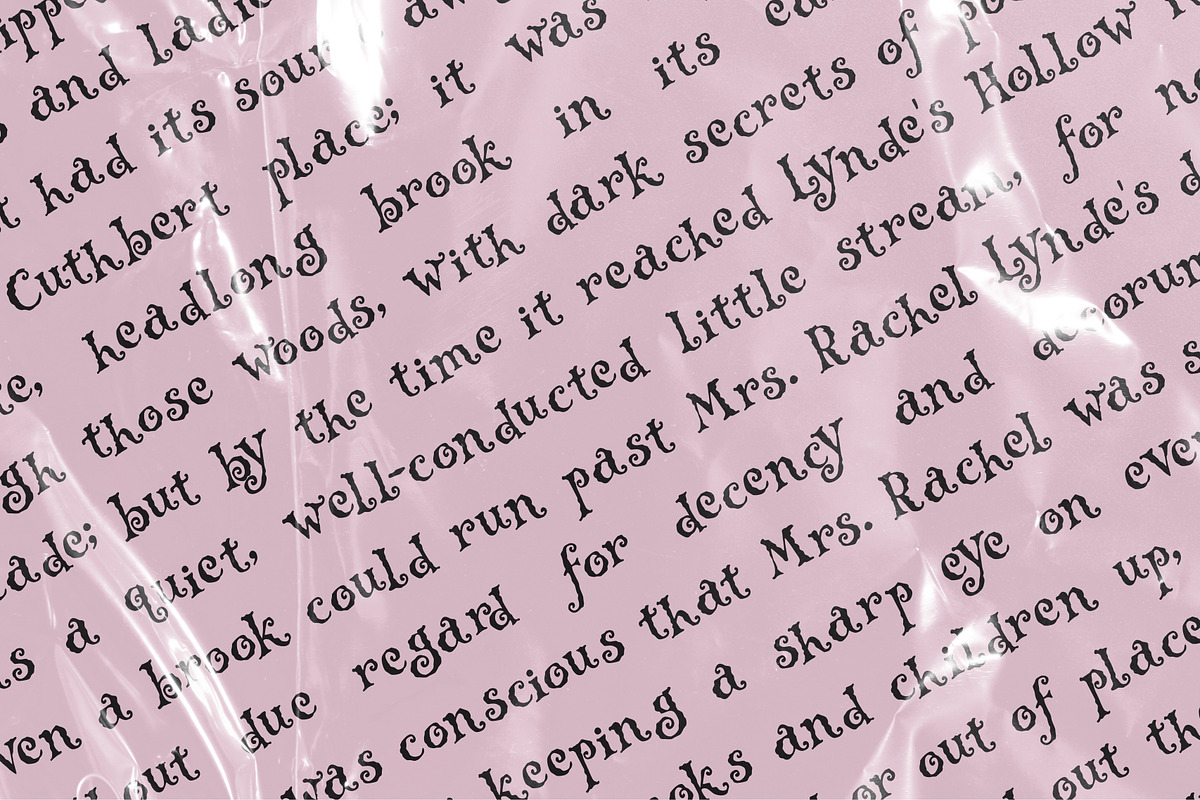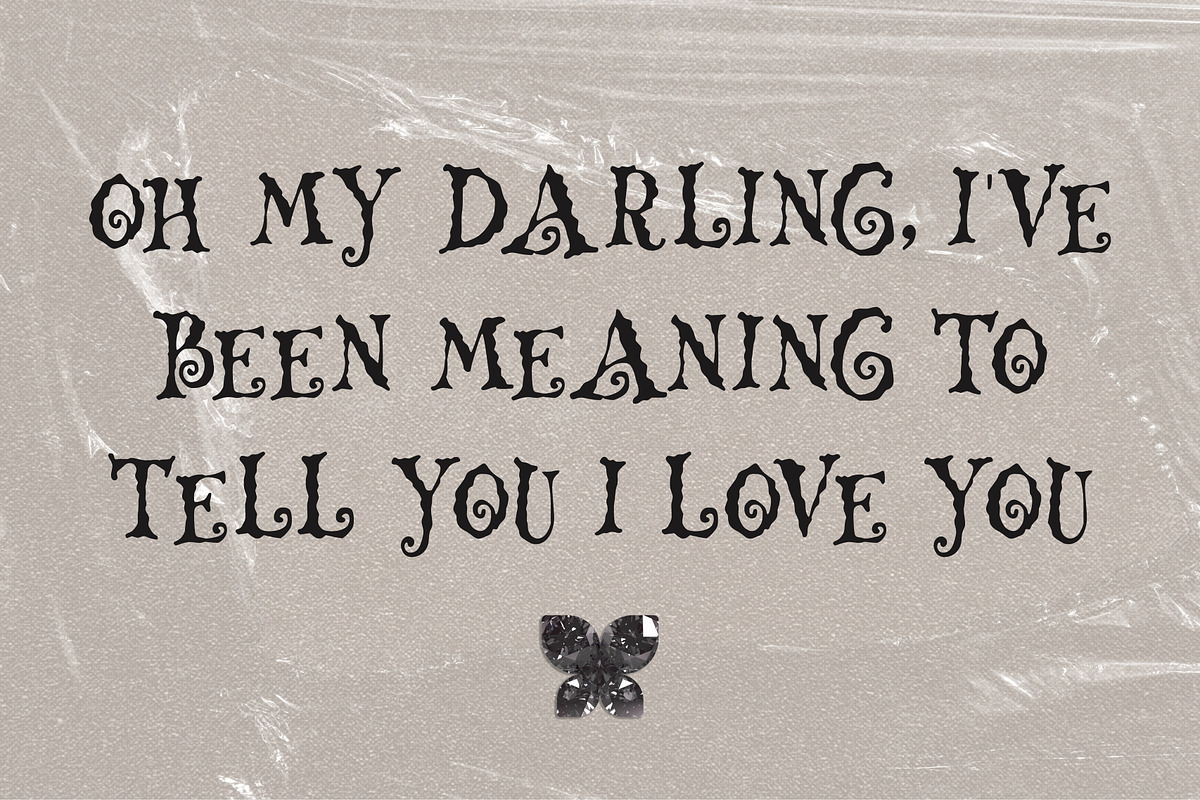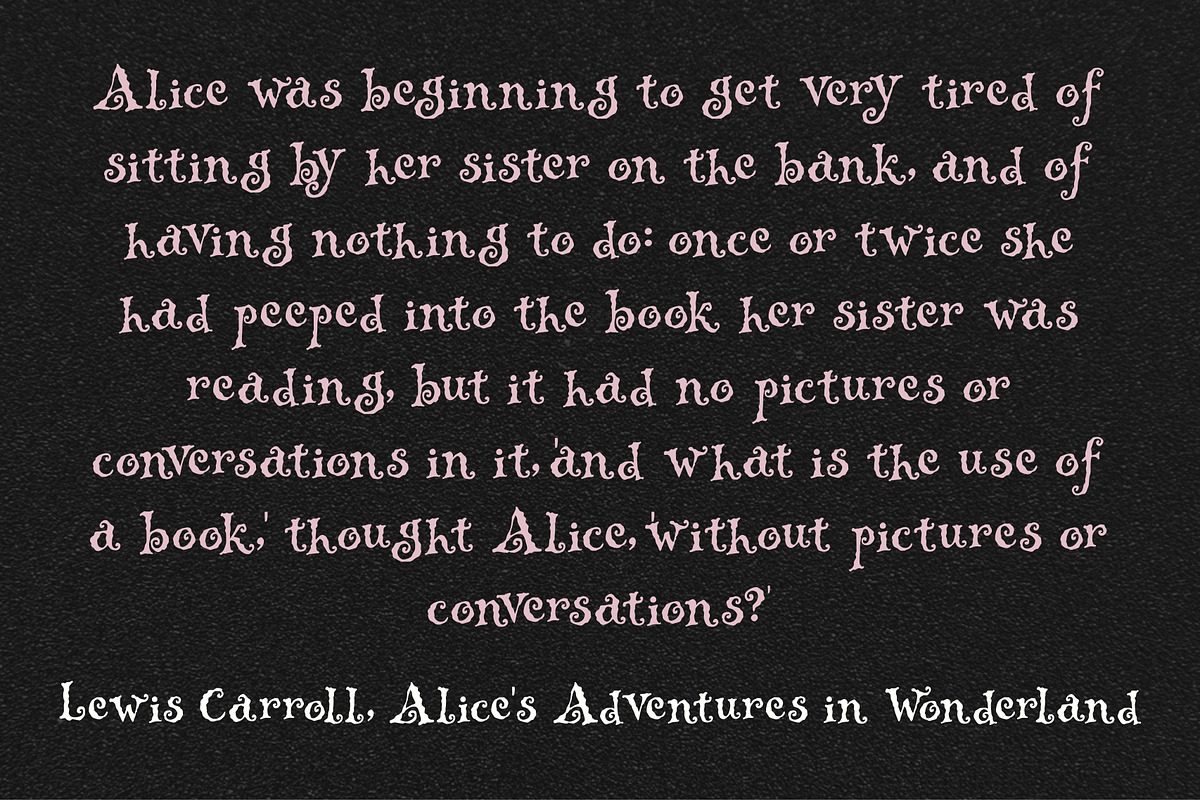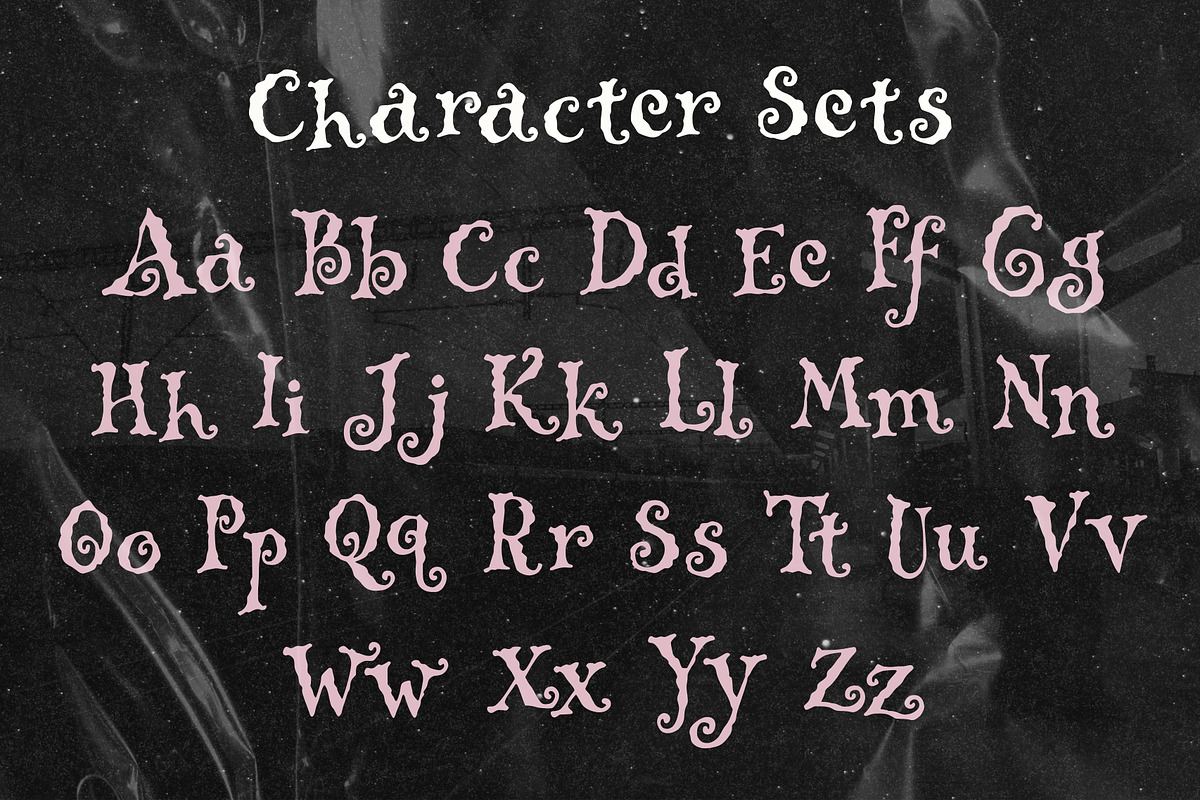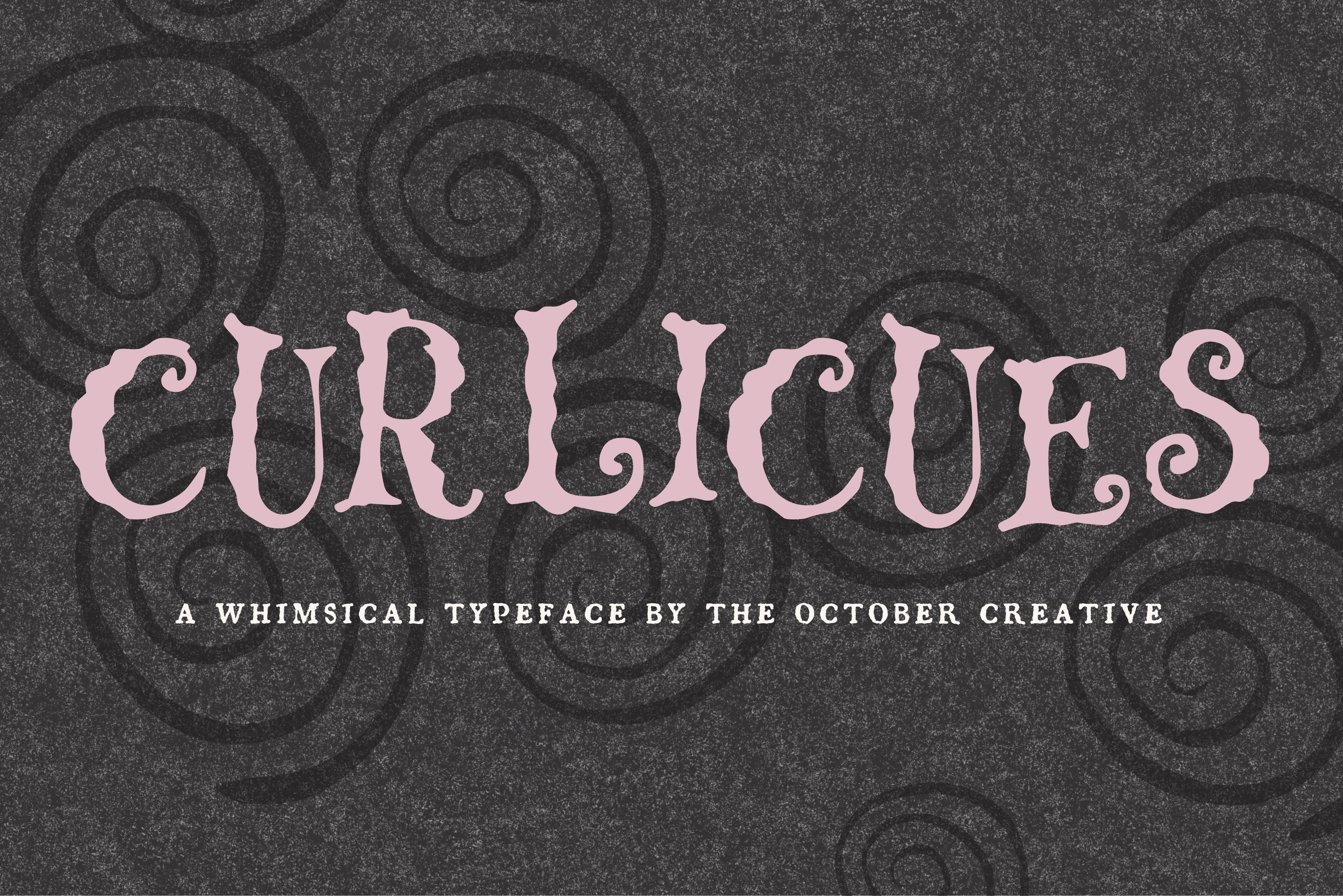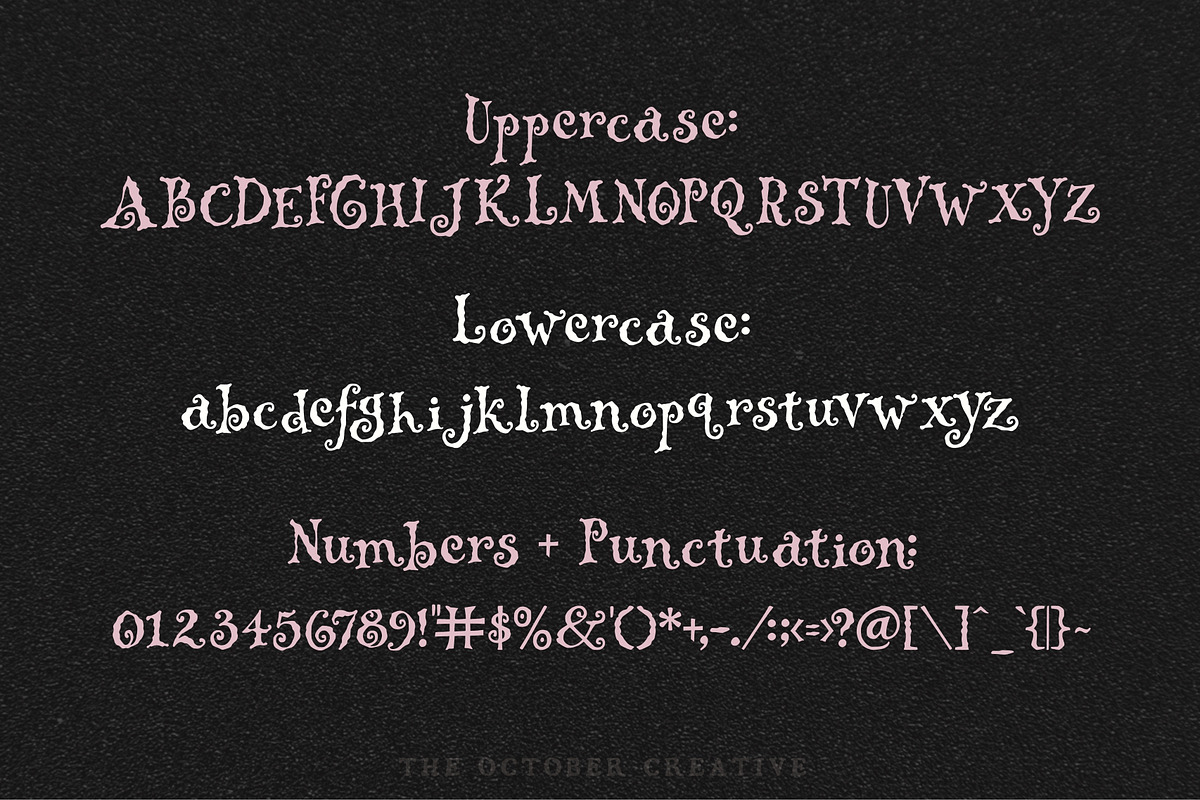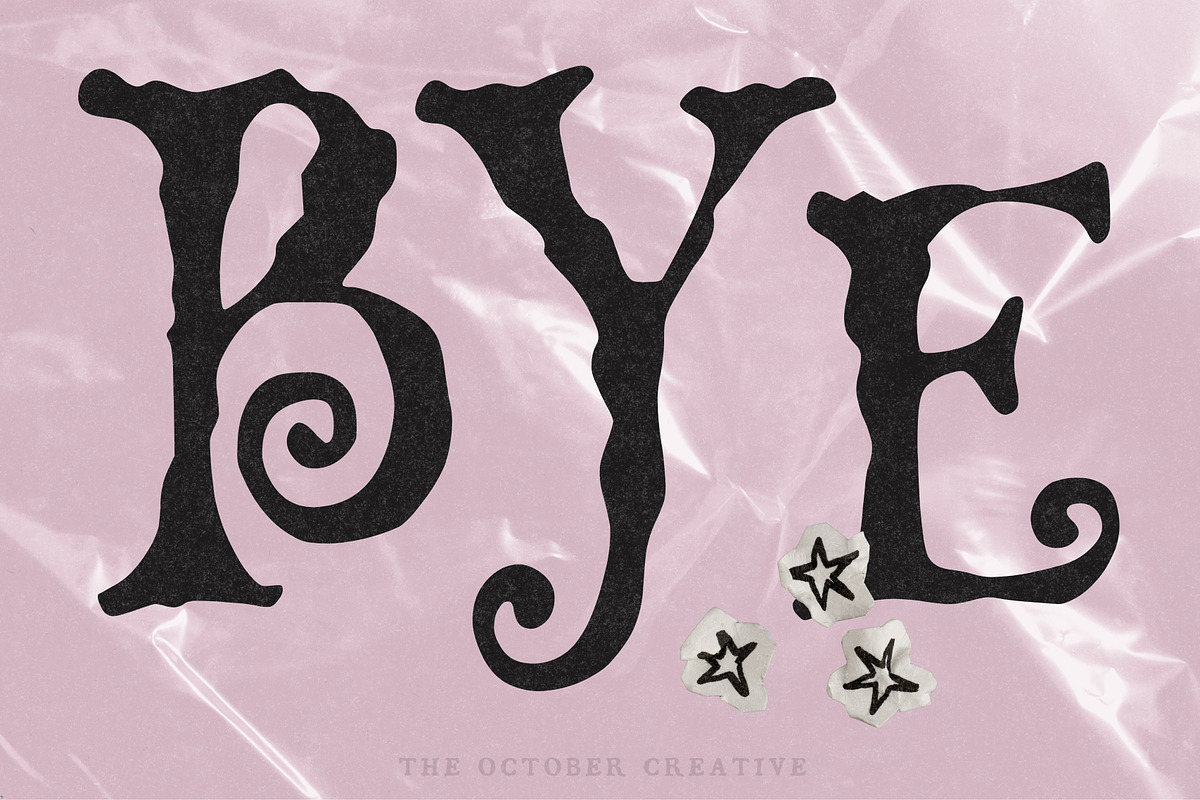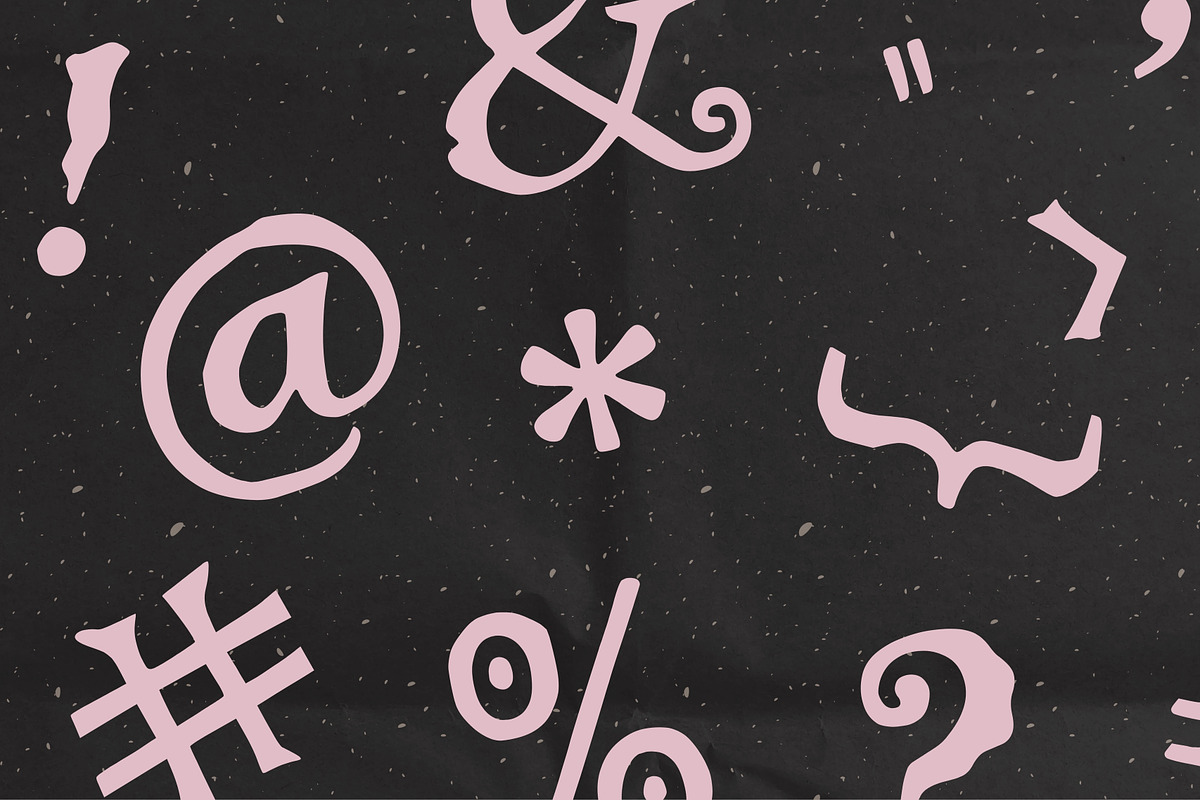
Curlicues Kooky Display Font
Curlicues is a kooky display font with bold irregular letters where every stroke ends in a hook or a curl. It fits logos, shop signage, product labels, and decorative title cards.
CHARACTER SET
Uppercase A to Z, lowercase a to z, numerals 0 to 9, and every standard keyboard punctuation mark and symbol: ! " # $ % & ' ( ) * + , - . / : ; < = > ? @ [ \ ] ^ _ ` { | } \~
Curly quotes and apostrophes (‘ ’ “ ”), en and em dashes, an ellipsis, and a bullet.
Accented letters: À Á Â Ã Ä Å Ç È É Ê Ë Ì Í Î Ï Ñ Ò Ó Ô Õ Ö Ù Ú Û Ü and their lowercase forms.
LANGUAGES SUPPORTED
English, plus the accented vowels, Ñ, and Ç used in names and everyday words in Spanish, French, Italian, Portuguese, German, and Dutch. Not included: ß, Æ, Ø, Œ, and the upside-down ¿ and ¡.
SPECIAL CHARACTERS